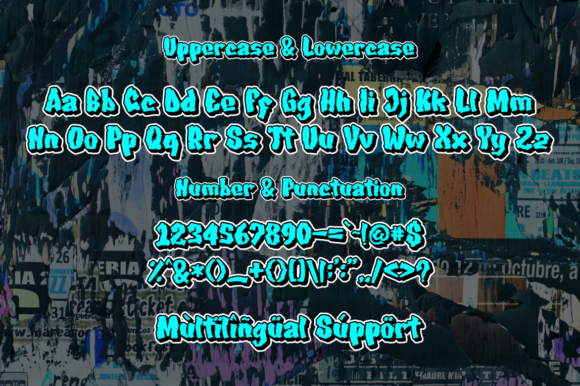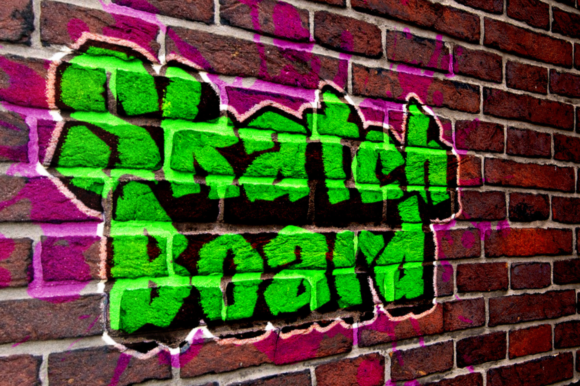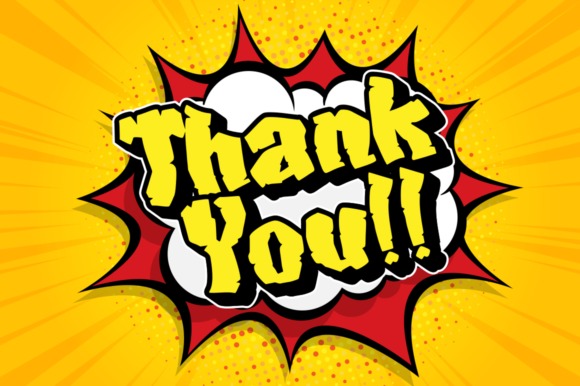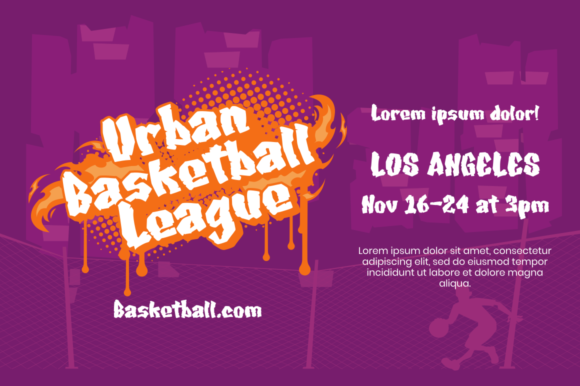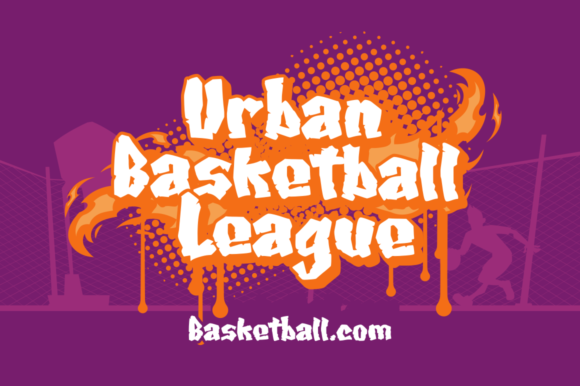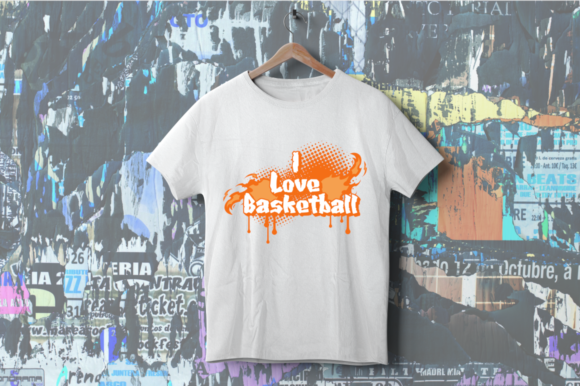
Introduction to Skatchboard Font
Skatchboard is a thick lettered, graffiti styled display font, that features a street art vibe.
This font is suitable for designs like jerseys, sportswear, skateboard and more .